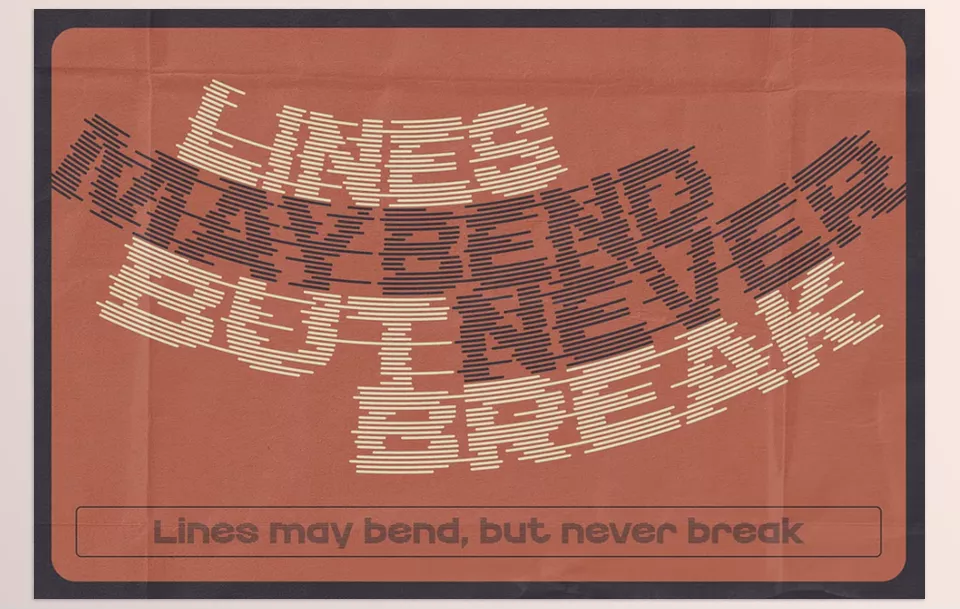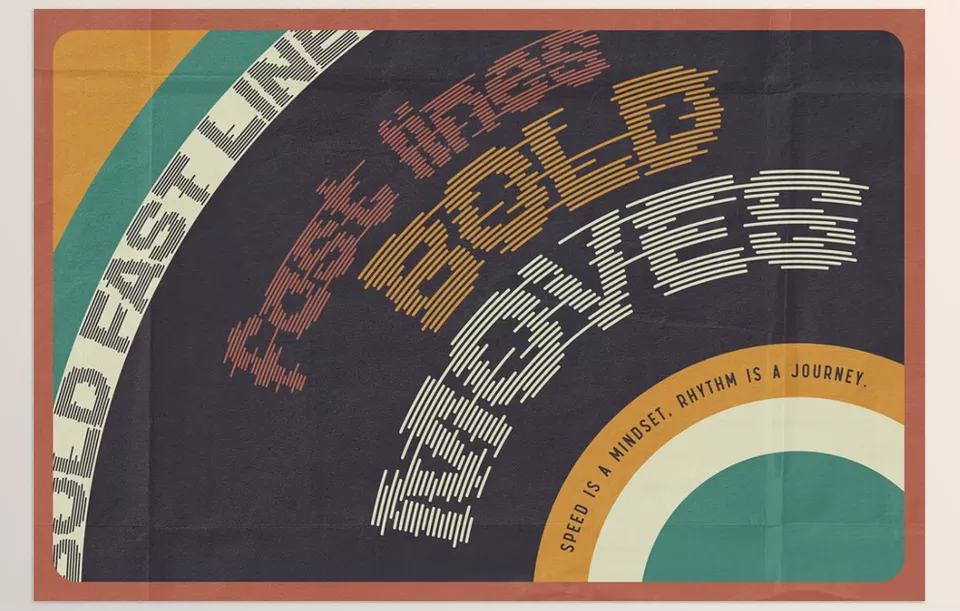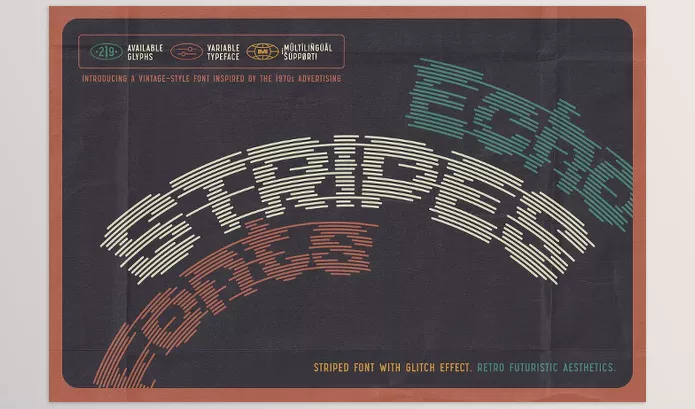
Creative Market – Echo Stripes Variable Font Set is a striking sans serif font characterized by horizontal stripes and sharp glitch effects. The font’s variable nature allows one to control the level of glitching, distortion, or warping from mild to extreme.
Gleb Guralnyk – Echo Stripes Variable Font Set Features
• It has three styles: Regular, Glitch, and Variable.
• Distinctive design with horizontal line patterns and glitch effects.
• Altering the level of warping creates brand-new striking visuals.
• Usable in many languages and cultures.
• Versatile applications for marks, symbols, and illustrations.
Image 1: A futuristic typeface that blends clean lines with an edgy glitch effect, perfect for bold designs.
Creative Market - Echo Stripes Variable Font Set - A futuristic typeface that blends clean lines with an edgy glitch effect, perfect for bold designs.
Image 2: Create striking visuals with a font that lets you control the intensity of distortion for maximum impact.
Creative Market - Echo Stripes Variable Font Set - Create striking visuals with a font that lets you control the intensity of distortion for maximum impact.